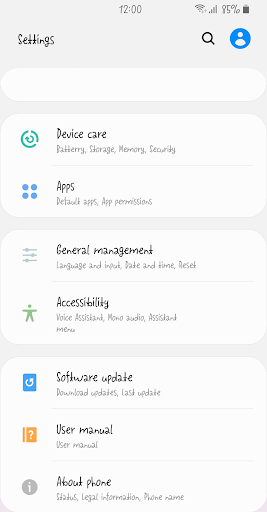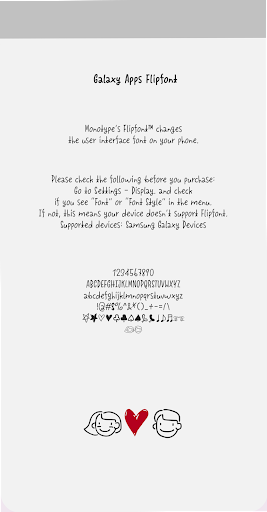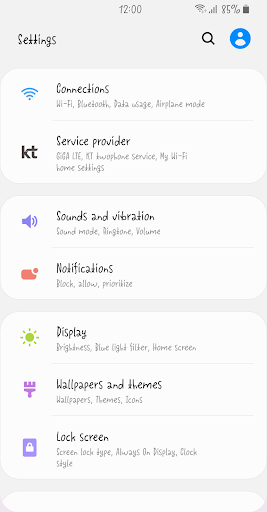
BST LaLaLand
This typeface has a girly and playful shape and is designed with a lively concept as if it were dancing. It has a narrow body, and the uppercase letters are neat and the lowercase letters are free. ♨ has a girl and ♭ has a boy image.